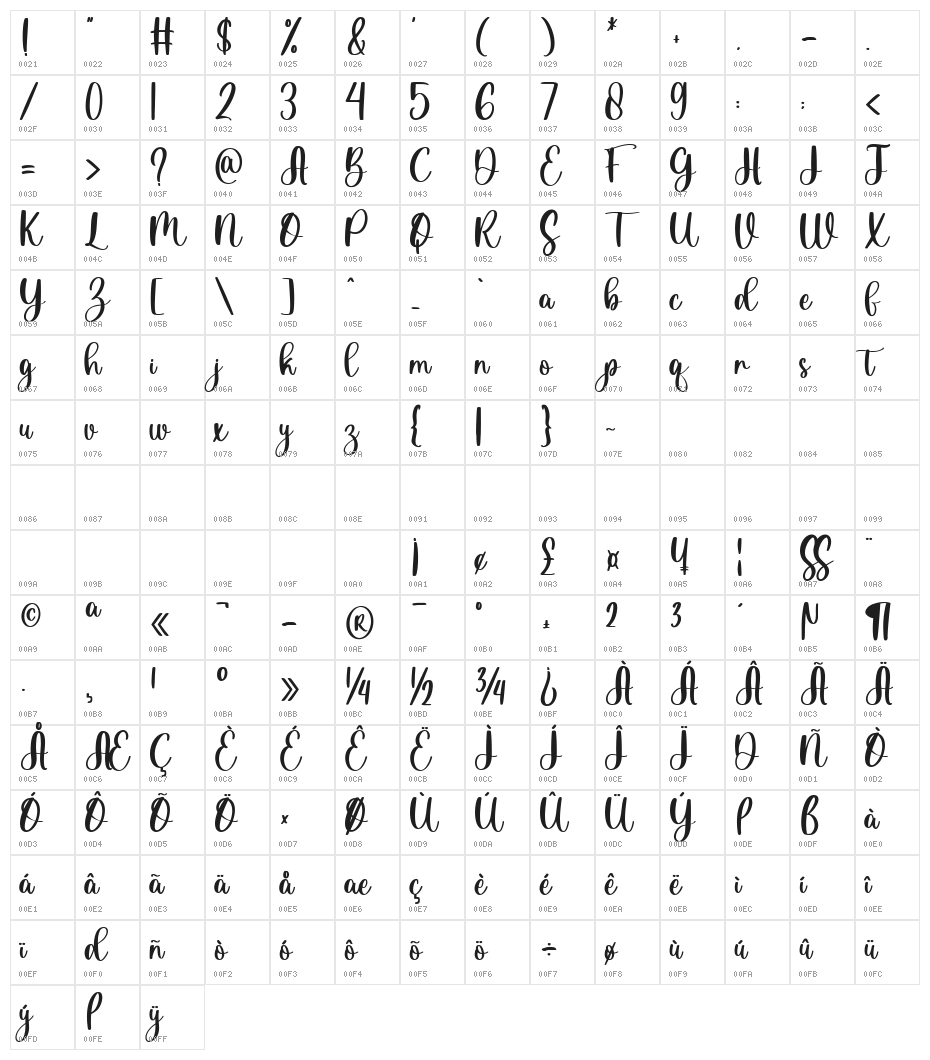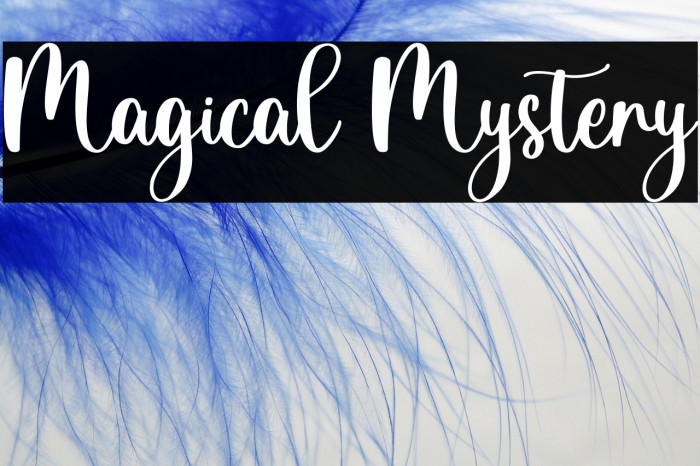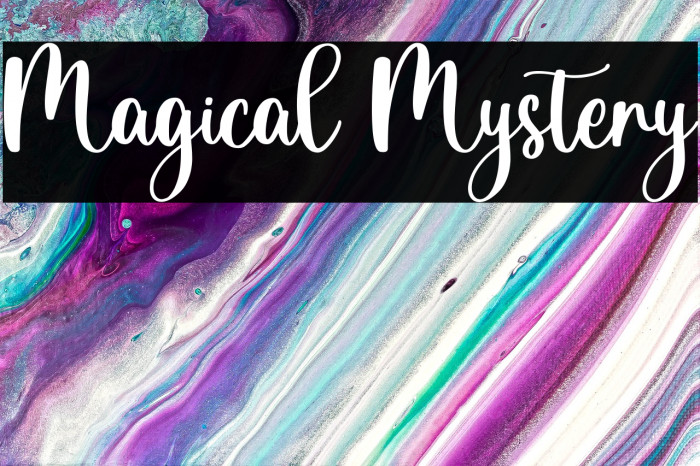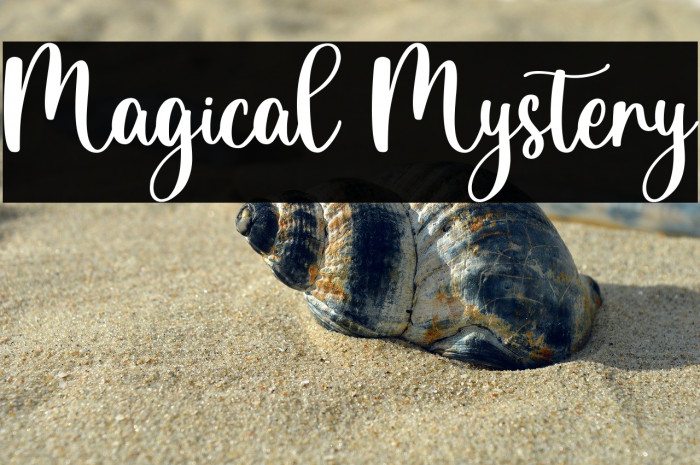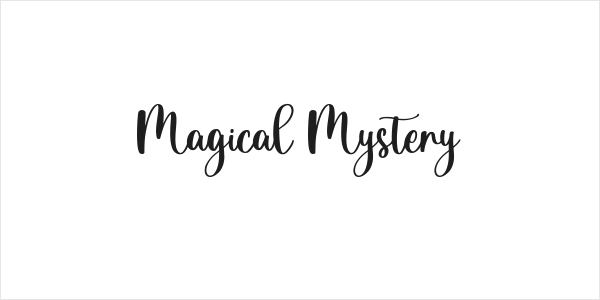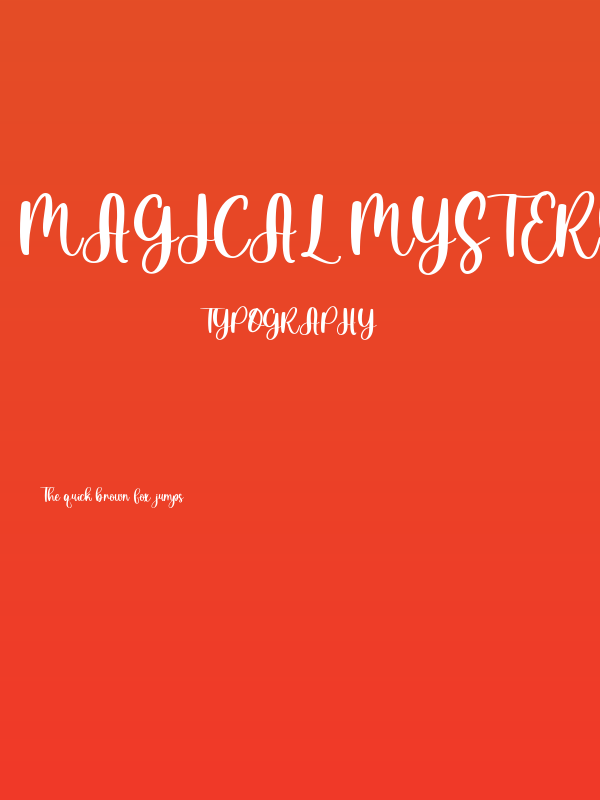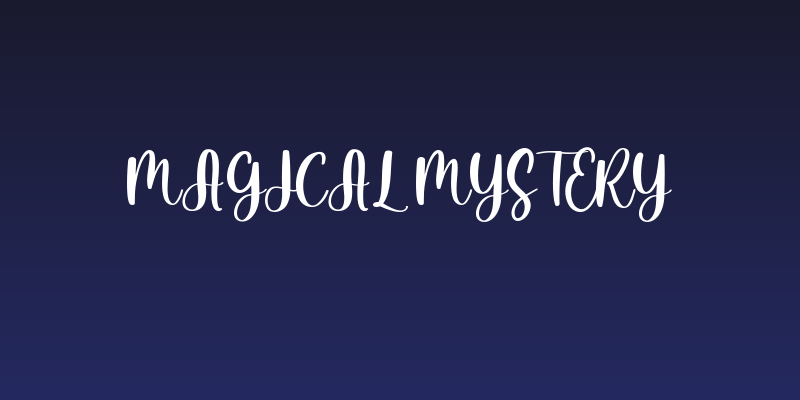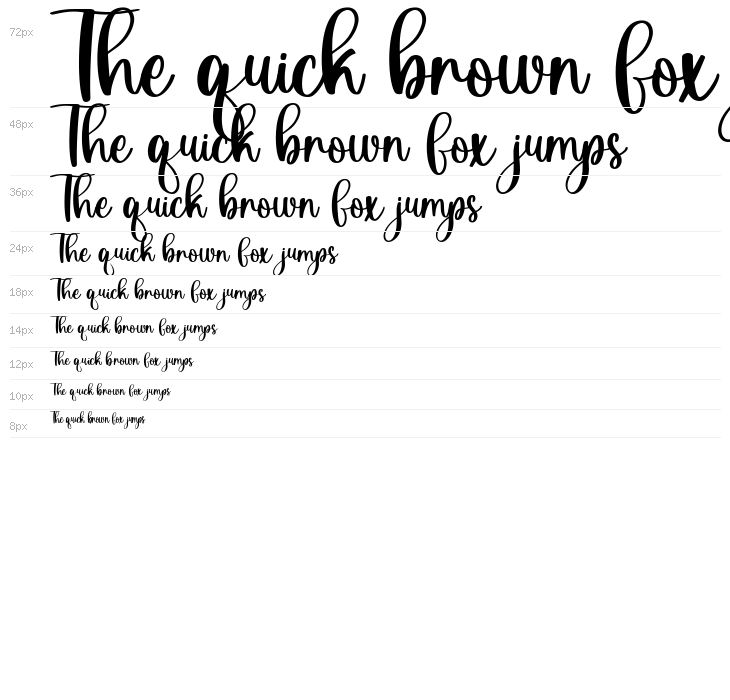
Magical Mystery Font
Magical Mystery Description
This font features a whimsical and flowing script style, characterized by its elegant and fluid letterforms. Each character is crafted with a sense of movement, giving the text a dynamic and lively appearance. The uppercase letters are bold and prominent, while the lowercase letters maintain a consistent and harmonious flow. The numbers and special characters are designed to complement the overall style, ensuring a cohesive look across all text elements. The font's playful curves and loops make it ideal for creative and expressive projects.